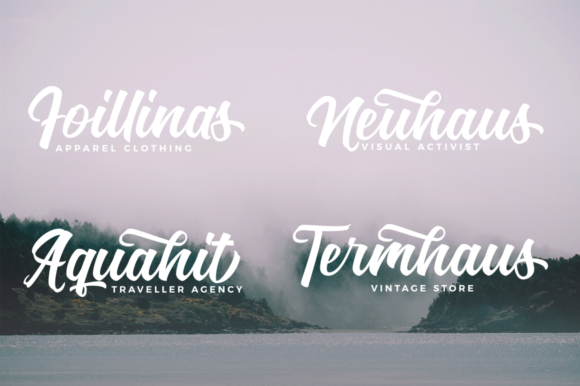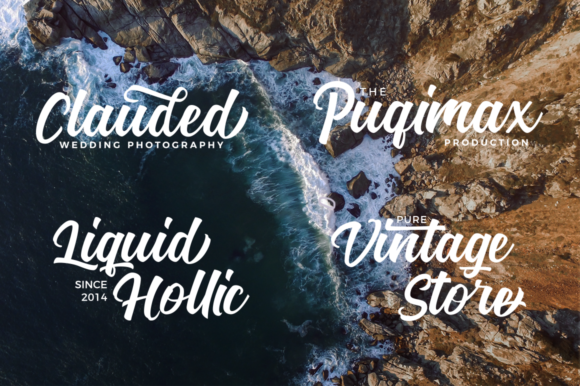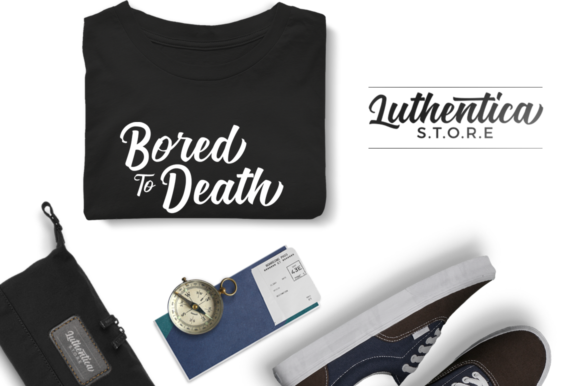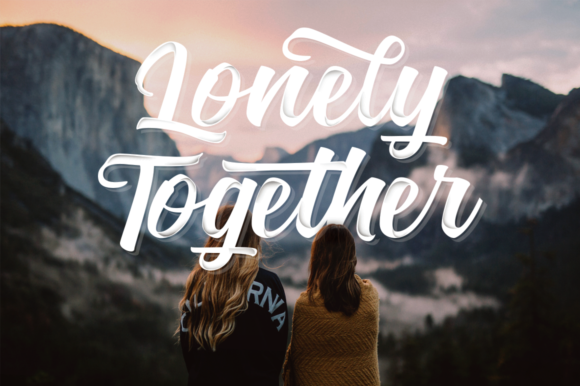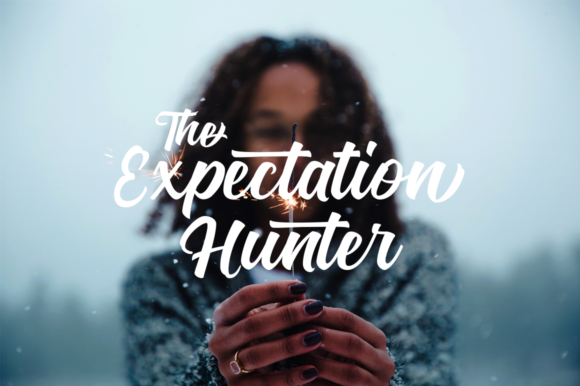
HomeScript FontsNadheeya Script Font Script Fonts Nadheeya Script Font FacebookXPinterestWhatsApp Nadheeya Script Font Poster 2 Nadheeya Script Font Poster 3 Nadheeya Script Font Poster 4 Nadheeya Script Font Poster 5 Nadheeya Script Font Poster 6 Nadheeya Script Font Poster 7 About Nadheeya Script Font The Nadheeya is a beautiful script font. It was inspired by a beautiful woman, from her eyes until her heart. DOWNLOAD NOW People also explored Ambattul Font Geovanice Font Wedding Christmas Font Bilgate Font Sunshine Tropical Font Nominate Font Cheery Pink Dreams Font Sometime Font Sushanty Font 321 0 TagsNadheeya Script Font Previous articleGrande October Three FontNext articleBrentha Font LEAVE A REPLY Cancel reply Comment: Please enter your comment! Name:* Please enter your name here Email:* You have entered an incorrect email address! Please enter your email address here Website: Save my name, email, and website in this browser for the next time I comment. Personal Use Free Mounets Personal Use Free Read more about this font Shnobel Personal Use Free Read more about this font Morning Miow Personal Use Free Read more about this font Glosery Personal Use Free Read more about this font BLOG Using Fonts in Digital Marketing: Tips to Strengthen Your Brand Identity In the realm of digital marketing, every visual element plays a crucial role in shaping a brand's identity, and fonts are no exception. The... Fonts That Capture the Spirit of New York City Top 10 Handwritten Fonts That Elevate Your Designs The 10 Best Handwriting Fonts to Add Personality to Your Designs